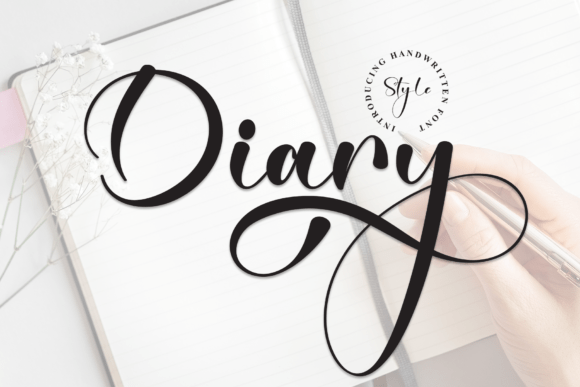
Unleashing Your Creativity: The Power of Diary Font
Have you ever found yourself scribbling down ideas in a journal, only to realize that the handwritten font is the real star of the show? That’s where Diary Font comes in – a special creative product designed to give you an extraordinary experience. This unique font is perfect for wall displays, wedding invitations, social media post logos, and any project that requires that special touch of handwriting.
For designers, Diary Font is a valuable tool that can elevate their work to the next level. With its latest style letters, you can create stunning visuals that capture attention and leave a lasting impression. Whether you’re working on a branding project or a personal design, Diary Font is sure to inspire your creativity and bring your ideas to life.
Key Features of “Diary Font”
- Font Family: A custom-designed, hand-drawn font with a unique, cursive style.
- Character Set: Includes a wide range of characters, including uppercase and lowercase letters, numbers, and punctuation marks.
- Unique Characteristics: Features subtle variations in letterforms and connections, giving it a personal and handwritten feel.
Designer Review: Diary Font
As a designer, I was excited to dive into the Diary Font and see what it had to offer. Overall, I found it to be a decent addition to any font library. Here are some of the things that worked well:
- ✨ It’s a great choice for creating a handwritten or journal-style feel, which is perfect for social media posts, blog titles, or other creative projects.
- ✨ The font has a nice, fluid feel to it, making it easy to read and visually appealing.
- ✨ It’s available in a range of weights, from light to bold, which gives designers a good amount of flexibility when it comes to styling their text.
- ⚠️ The font may not be suitable for large blocks of text, as it can start to feel a bit overwhelming or even illegible.
- ⚠️ Some of the characters may not be as polished as others, which can affect the overall aesthetic of a design.
Overall, I’d give the Diary Font 3.5 out of 5 stars. It’s a solid choice for designers looking to add a bit of whimsy or personality to their projects, but it may not be the best fit for every situation.
Practical Application Guide for Diary Font
Some popular use cases for the Diary Font include:
- Creating personalized journals and planners.
- Designing invitations and cards for special occasions.
- Adding a touch of whimsy and personality to blog posts and social media graphics.
Remember to experiment with different layouts, colors, and styles to get the most out of the Diary Font.
Alternatives to Diary Font for Designers
Lato is a modern sans-serif typeface that offers a clean and elegant design. It is ideal for use in digital interfaces, publications, and branding materials. Lato has a similar friendly feel to Diary Font, but it is more versatile and suitable for a wide range of applications.
Comparison to Diary Font: Lato has a more modern and geometric feel, while Diary Font has a more traditional and handwritten appearance.
Abril Fatface is a elegant and refined serif font that is perfect for use in titles, headings, and other display text. It has a classic feel that is similar to Diary Font, but it is more sophisticated and luxurious.
Comparison to Diary Font: Abril Fatface has a more formal and traditional feel, while Diary Font has a more casual and handwritten appearance.
Playfair Display is a luxurious and elegant script font that is ideal for use in titles, headings, and other display text. It has a classic and sophisticated feel that is similar to Diary Font, but it is more refined and sophisticated.
Comparison to Diary Font: Playfair Display has a more formal and luxurious feel, while Diary Font has a more casual and handwritten appearance.